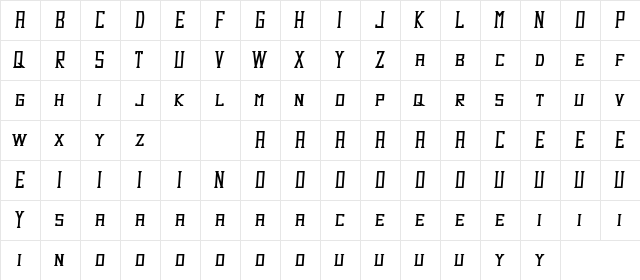
Dezert Demo Italic
Design Context for Dezert Demo Typeface
Dezert Demo is a composed and adaptable typeface that performs quietly and consistently across a wide range of design contexts. The slanted form adds forward momentum and visual energy.
Pro Tip: Use Dezert Demo for emphasis, pull quotes, and subheadings where its slanted energy can add rhythm to the layout.